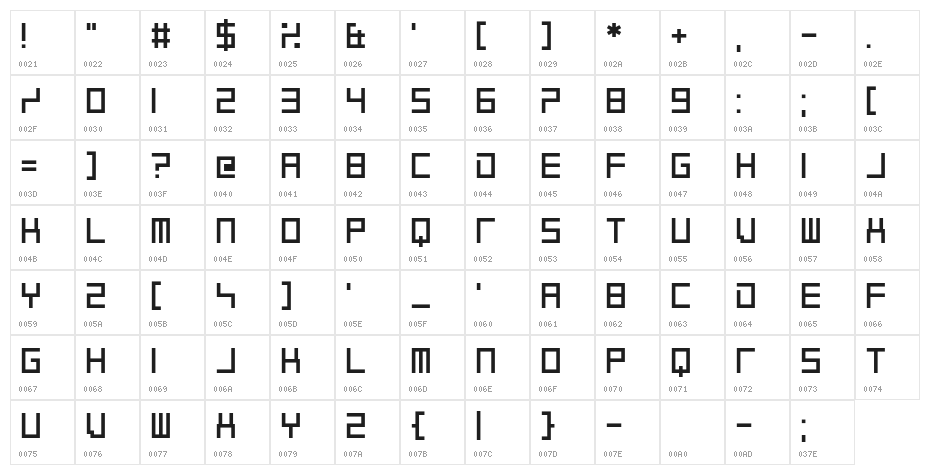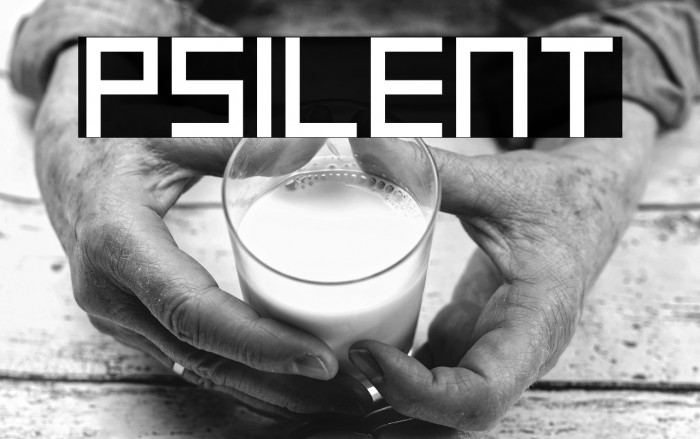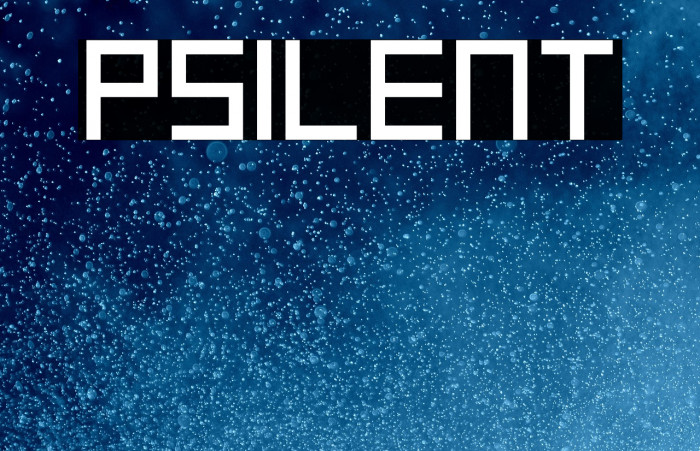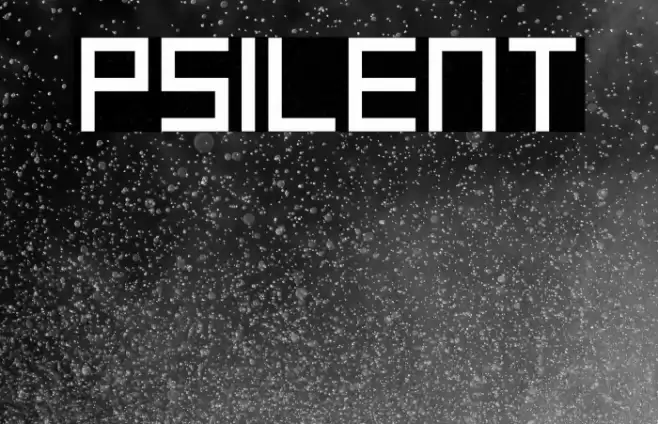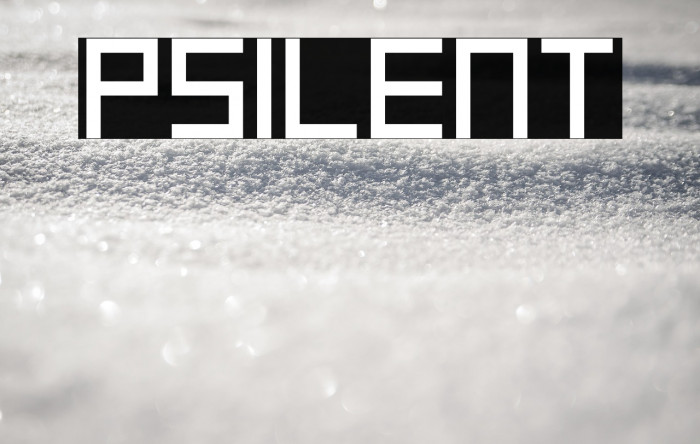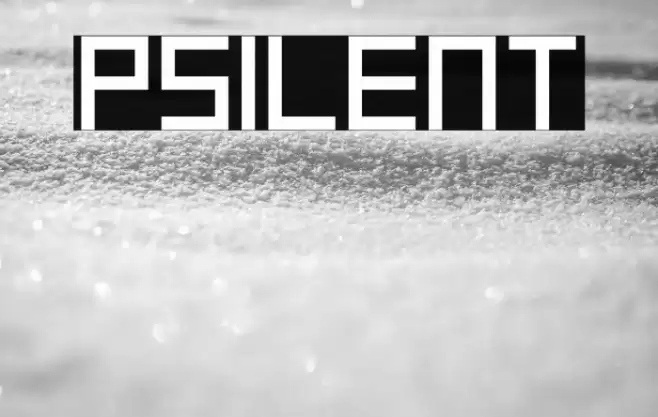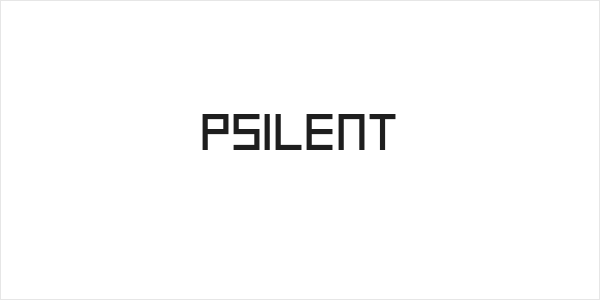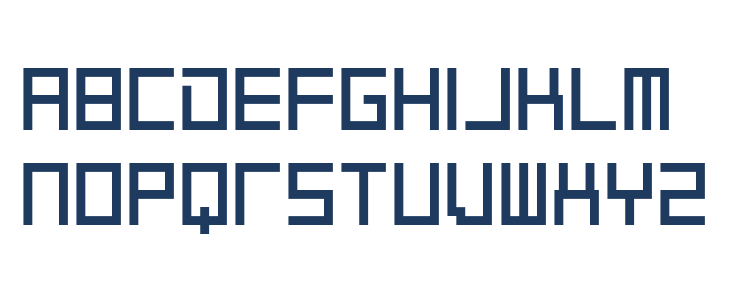
Psilent Font
Psilent Description
This font features a geometric, blocky design with a modern and futuristic aesthetic. The characters are constructed with straight lines and right angles, giving it a digital or technological feel. The uppercase and lowercase letters maintain a consistent height, contributing to a uniform appearance. The numerals and special characters follow the same design principles, ensuring cohesion across all glyphs. The font's structure is clean and minimalistic, making it suitable for projects that require a contemporary and edgy look.
| Use Case | Logos, Headlines, Digital interfaces |
| Proposed Projects | Ideal for tech-related branding, digital interfaces, video game design, and futuristic posters. |